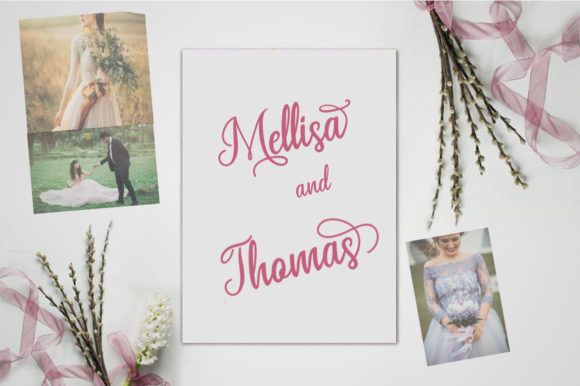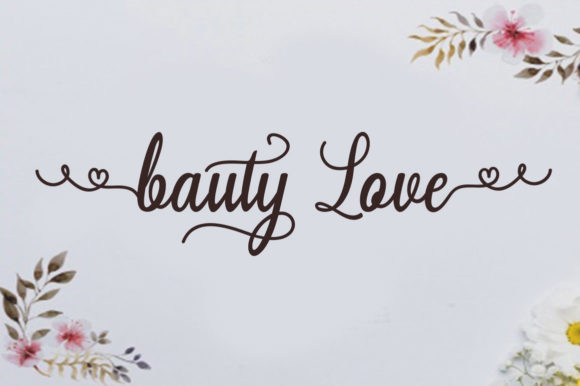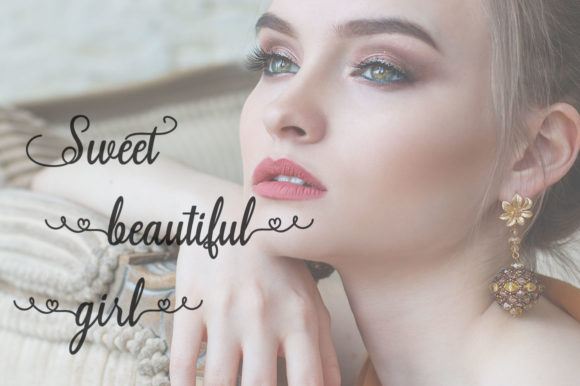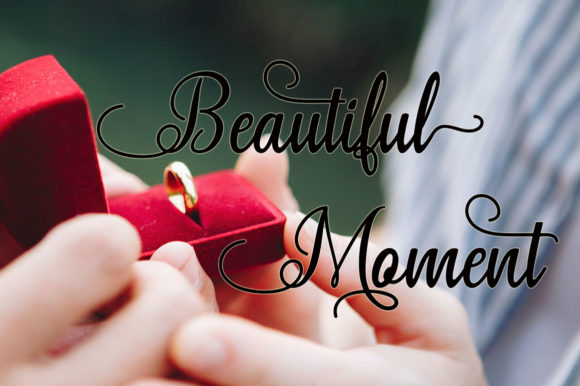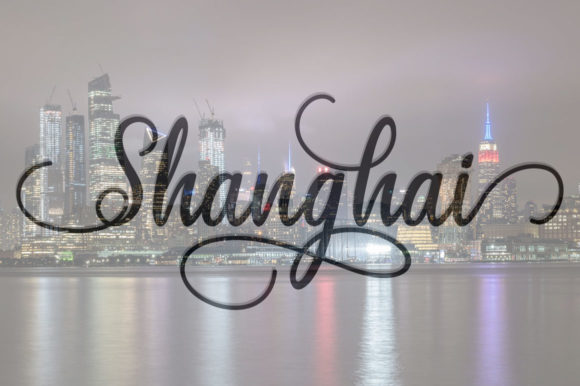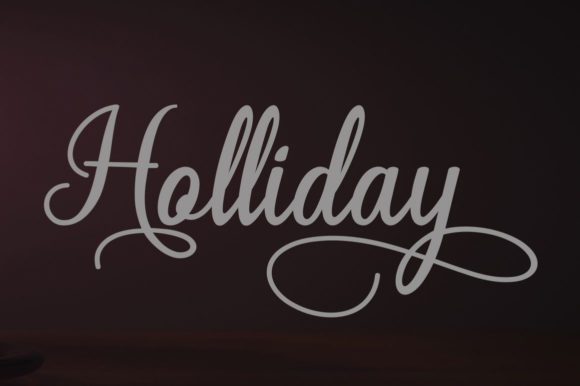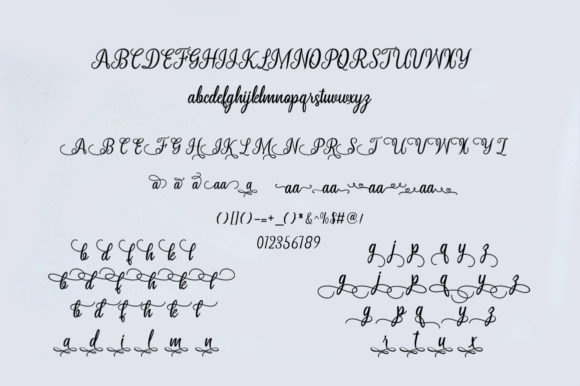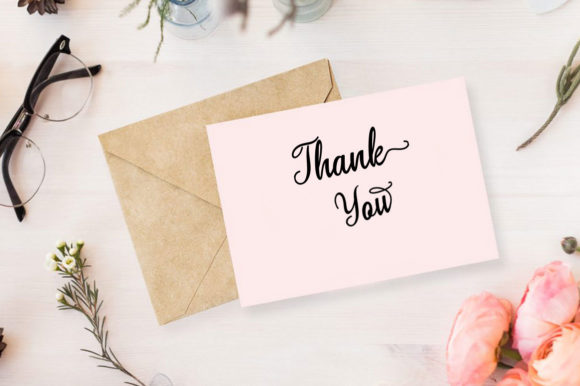
Diliya Font
About Diliya Font
Updating classic calligraphy with a modern twist, Diliya is the perfect font to elevate any new design project! Fall in love with its contemporary charm.